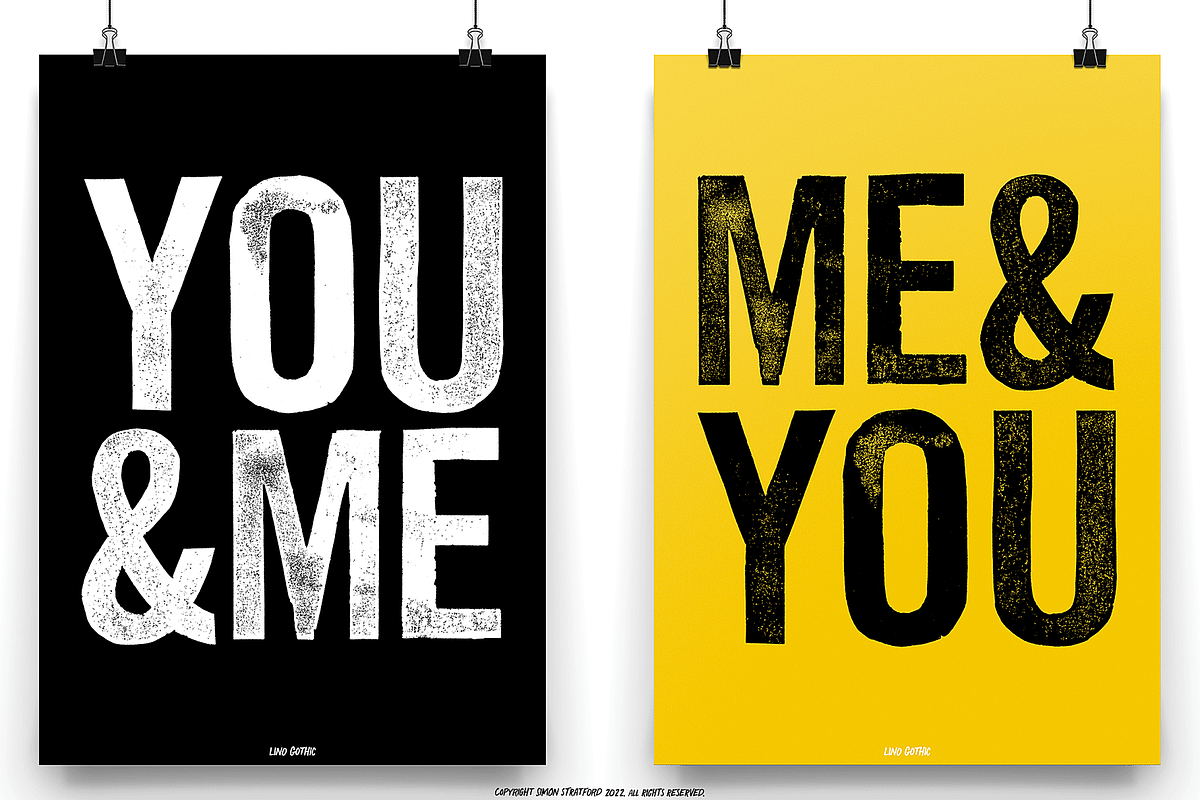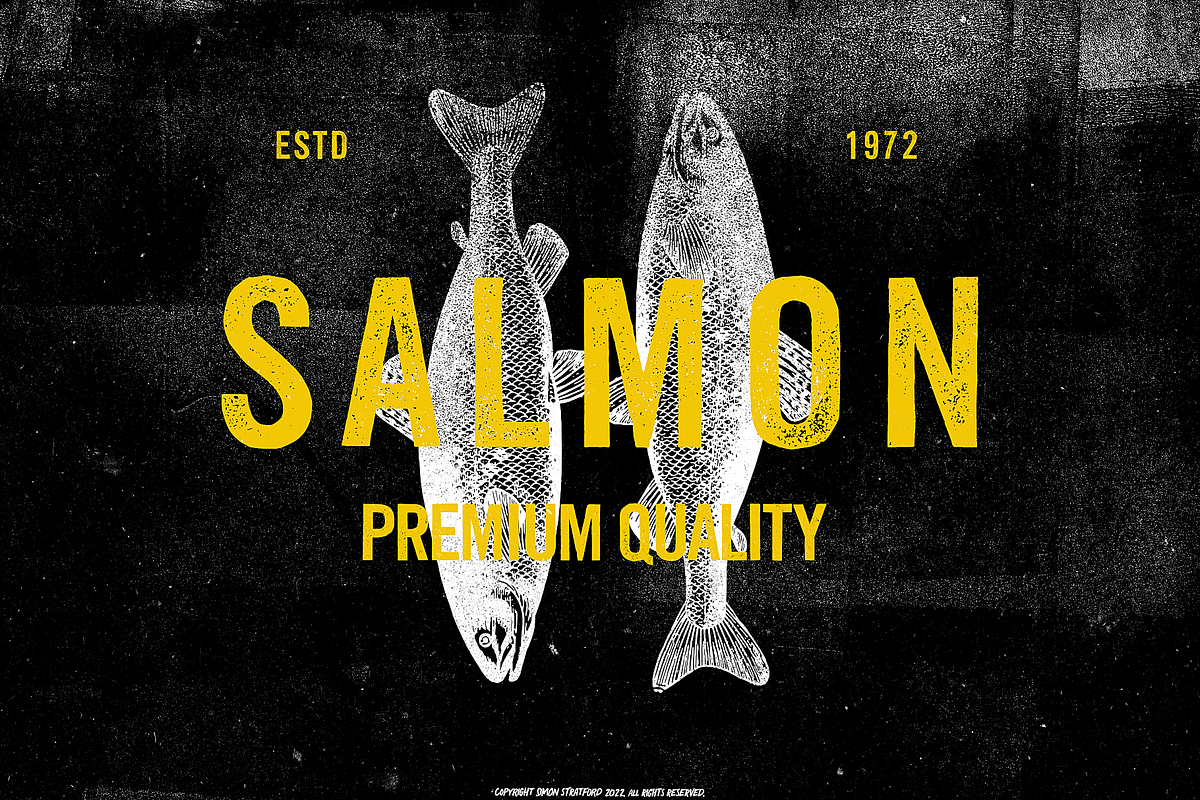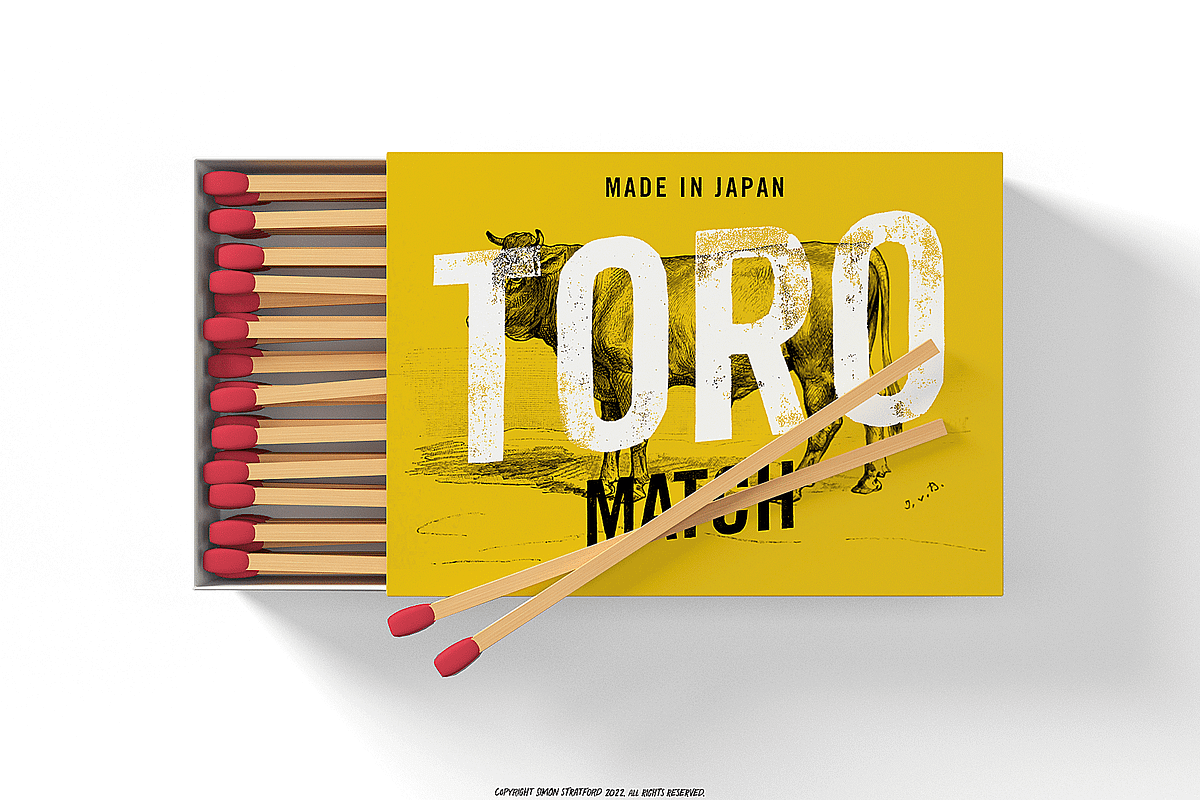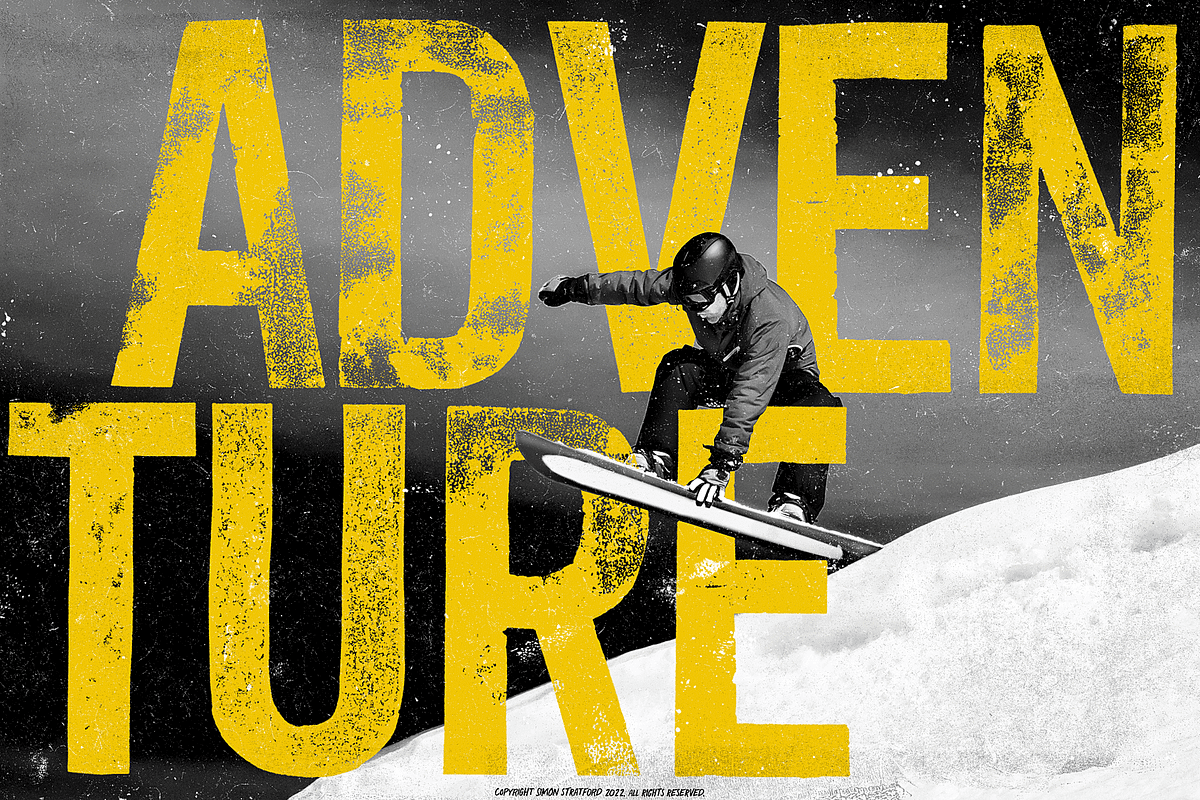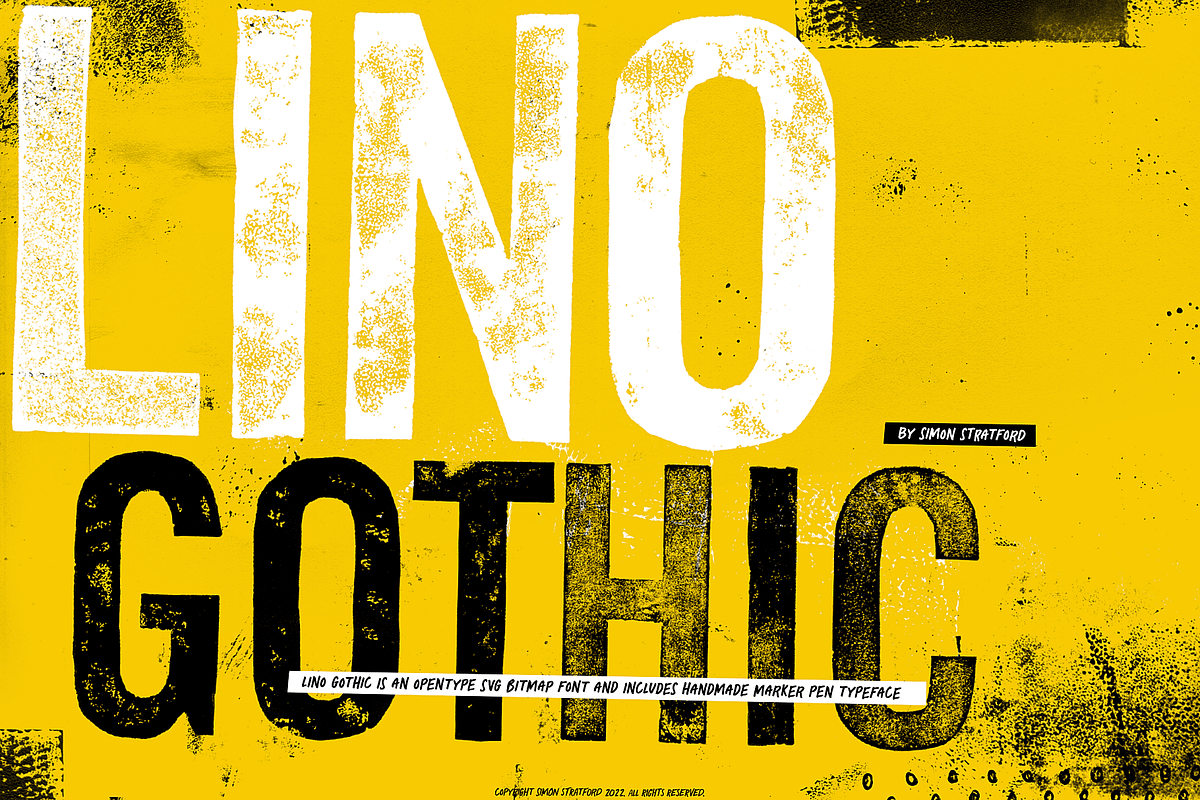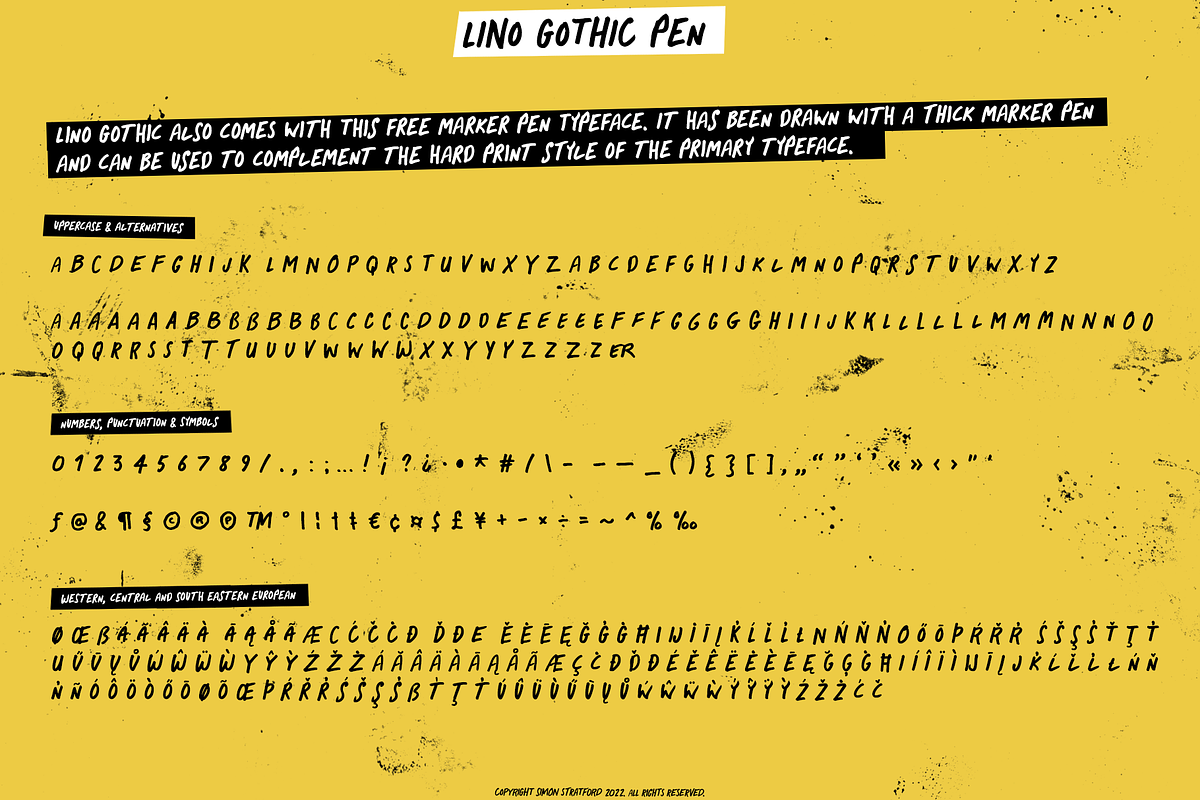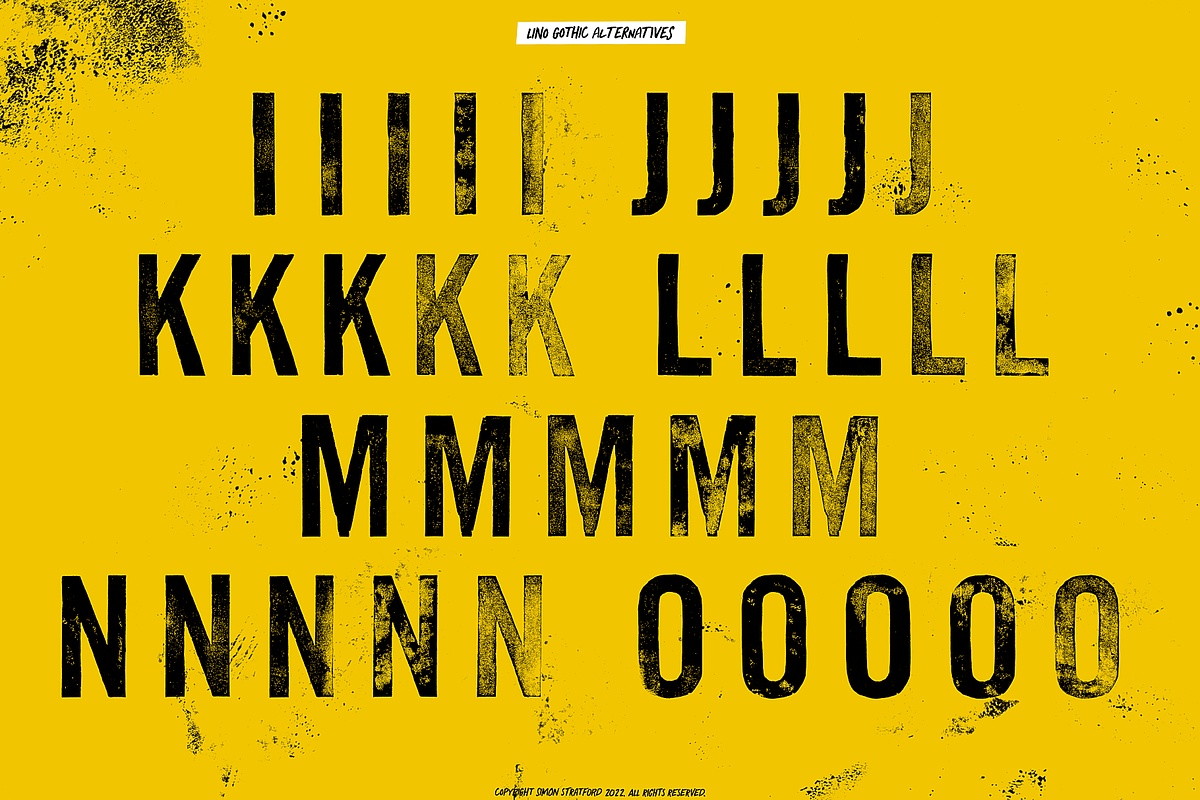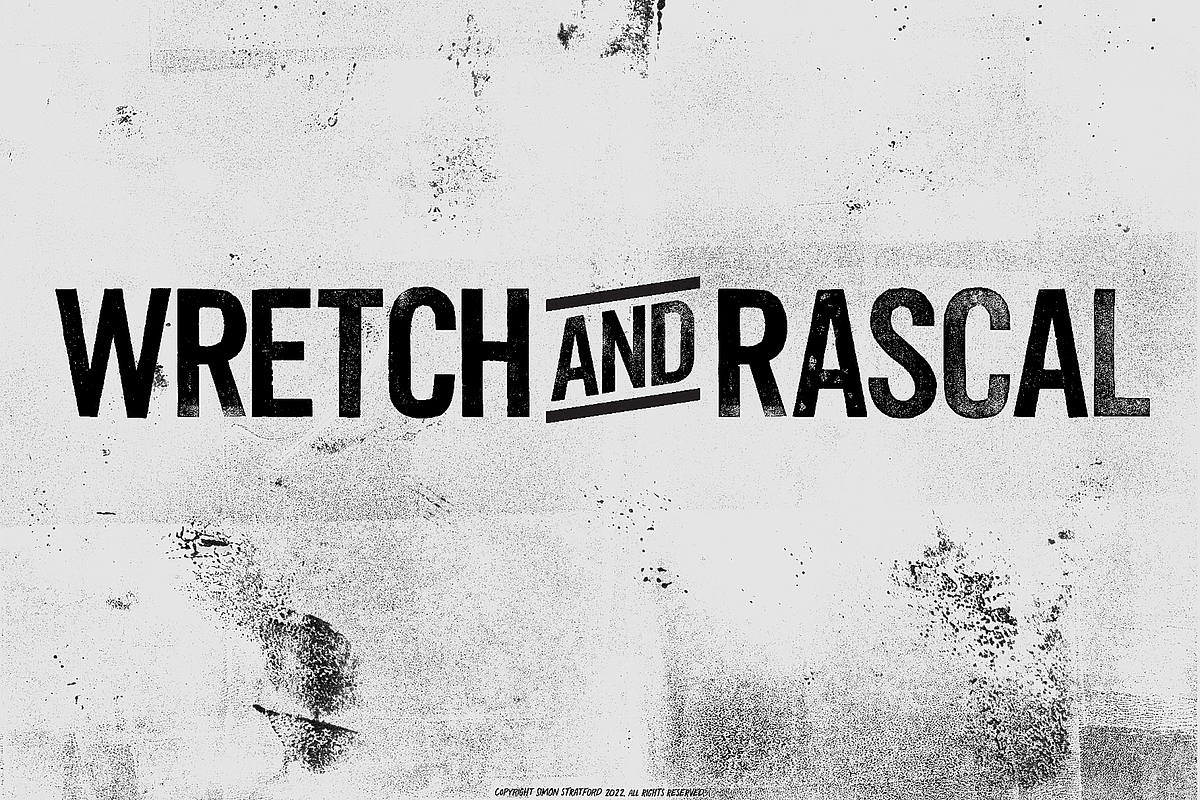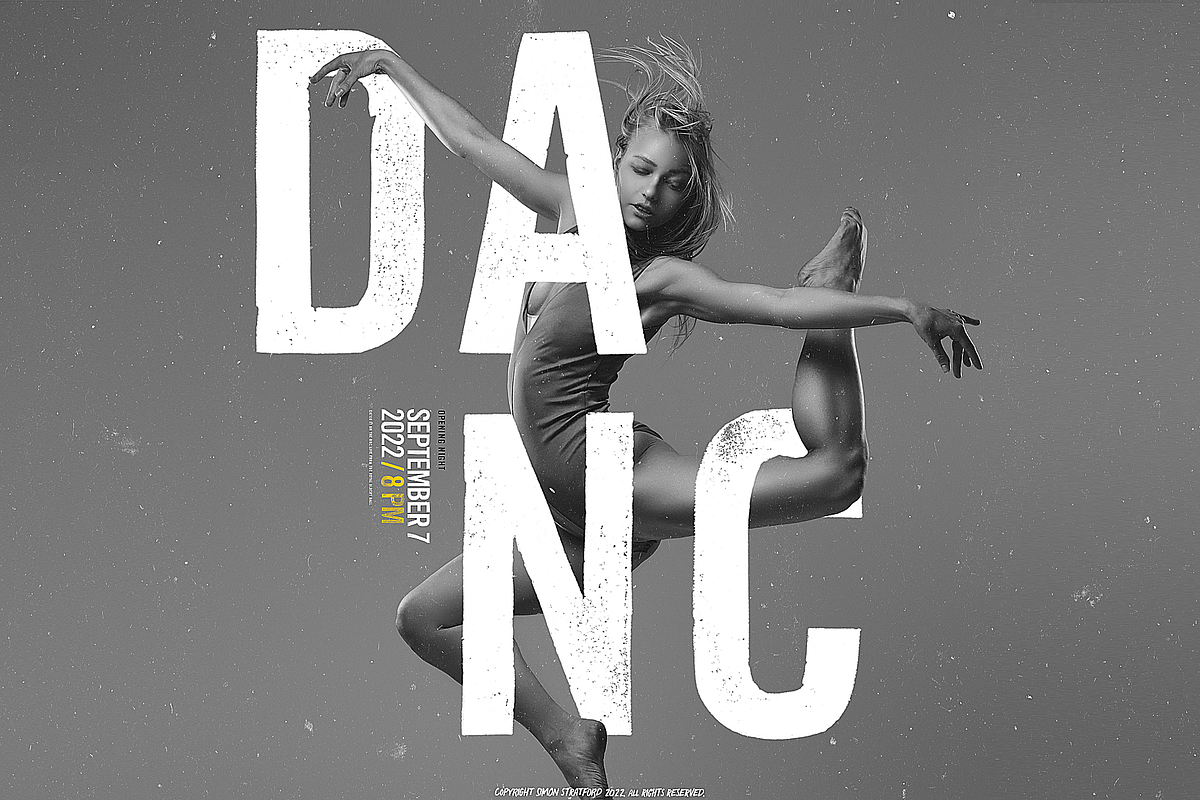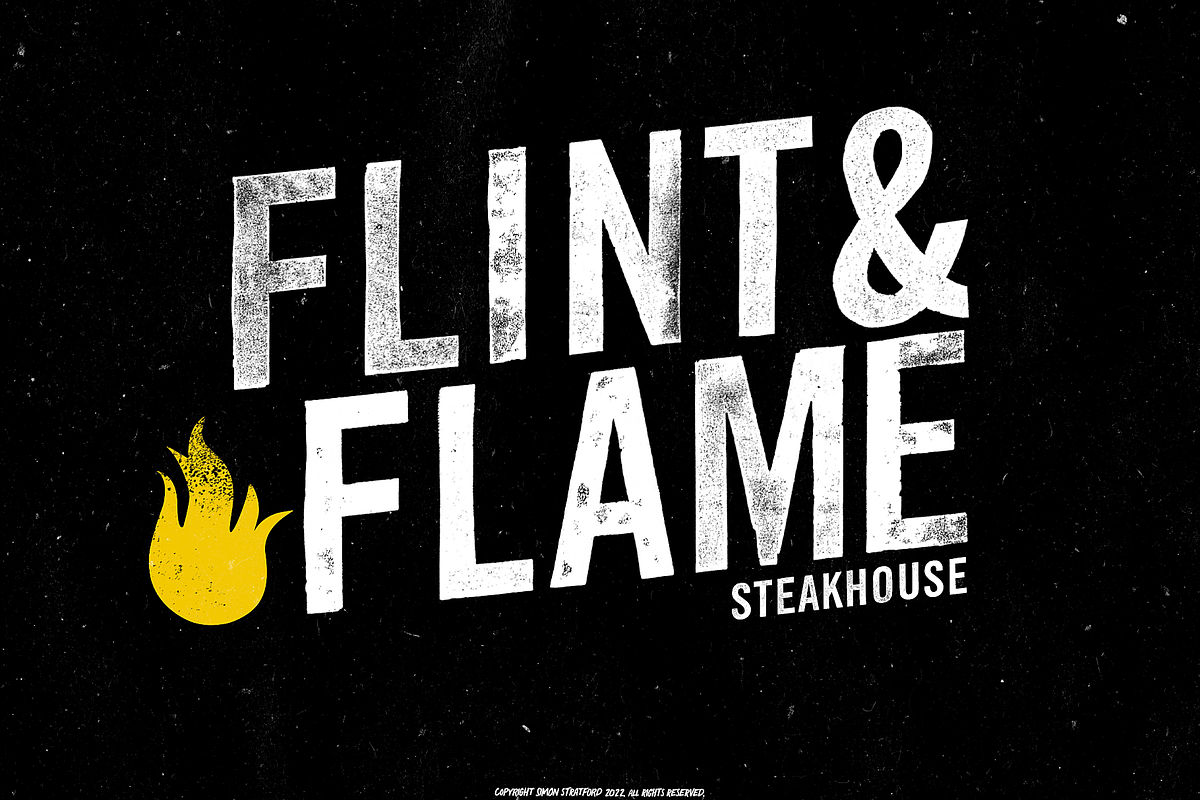
Display Font Lino Gothic
Like letterpress printing? My new Display Font is full of letterpress texture I made the Lino Gothic from multiple prints made out of a linocut. It was then hand-printed on paper, giving it a weathered vintage woodtype effect. It also includes a free hand drawn script font.
The OpenType SVG bitmap font includes multiple versions of each uppercase character to create a realistic letterpress type. In fact, for each A-Z character, the SVG font has five alternatives, all printed slightly differently. Therefore, you can mix and match the alternatives to give your design a unique look and feel.
If this font were a celebrity it would be more Amy Winehouse than Amy Schumer it probably should be in rehab!
Display Font printed like letterpress
The typeface contains a tremendous amount of detail that a traditional font can’t, so it looks incredible.
In addition, it also includes a hand made marker pen typeface and a traditional vector typeface.
OpenType SVG Bitmap font
Lino Gothic uses the new OpenType-SVG Bitmap font format. A traditional vector font has one colour and no transparency. Lino Gothic has full transparency and thousands of shades of black and grey. The OpenType-SVG Bitmaps technology gives the font so much more detail than the old font format.
Due to the limitations of OpenType SVG fonts, Lino Gothic SVG and Vector doesn't include any diacritical marks.